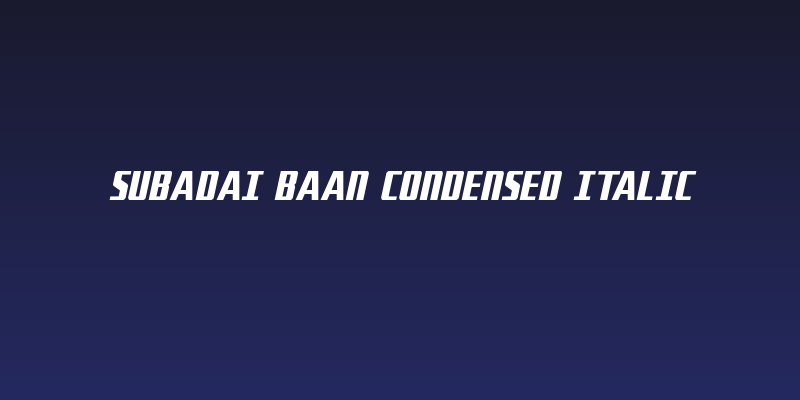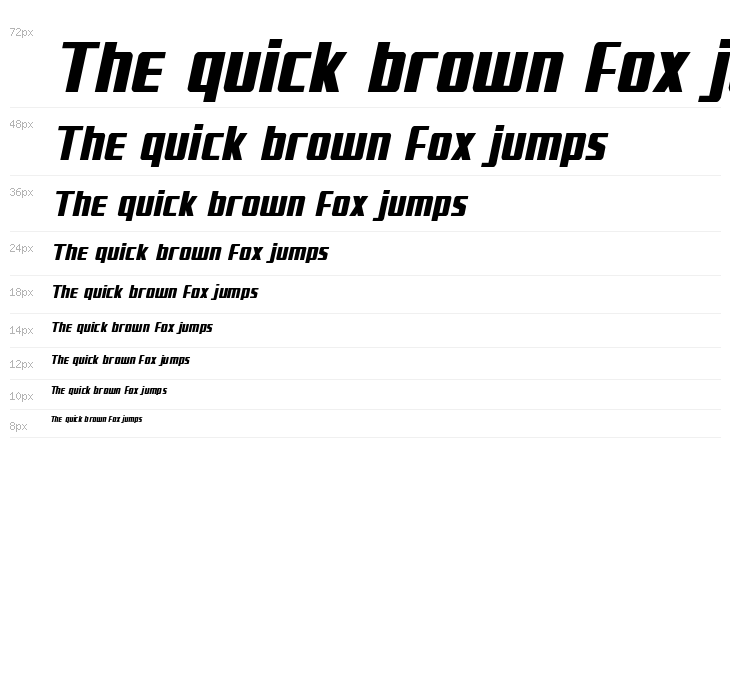
Subadai Baan Condensed Italic Font
Subadai Baan Condensed Italic Description
This font features a bold and dynamic style with a condensed and italicized form. The characters are sharply angled, giving a sense of movement and energy. The uppercase letters are tall and narrow, while the lowercase letters maintain a consistent height, enhancing readability. Numbers and special characters follow the same angular and condensed design, ensuring uniformity across all glyphs. The font's strong presence makes it suitable for impactful designs where attention is key. Its modern and sleek appearance is ideal for projects that require a contemporary and assertive look.